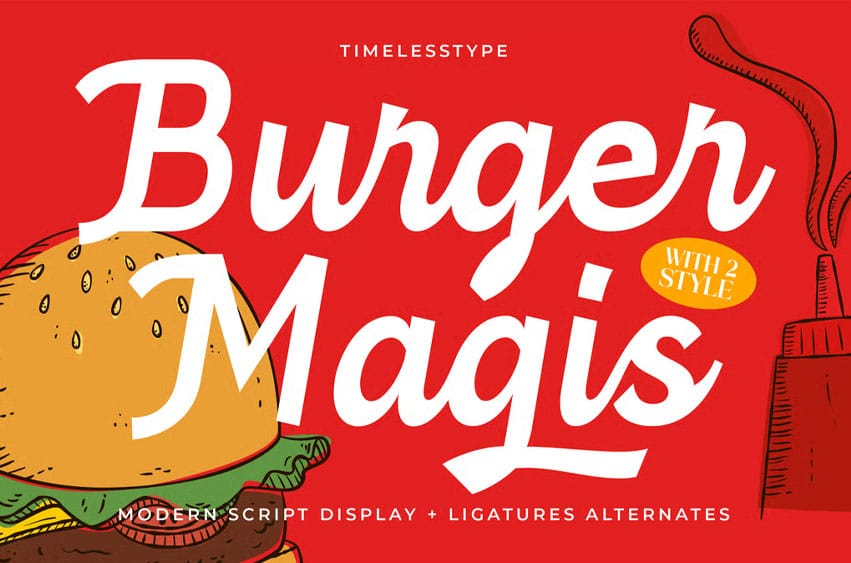
Burger Magis Font is a modern script display font with bold strokes and playful energy, designed to add charm and character to your projects. With stylish ligatures and dynamic alternates, this font is perfect for logos, posters, packaging, and social media graphics.
Its casual yet confident script style makes Burger Magis a versatile typeface for both digital and print designs, bringing a fresh and creative touch to every layout.